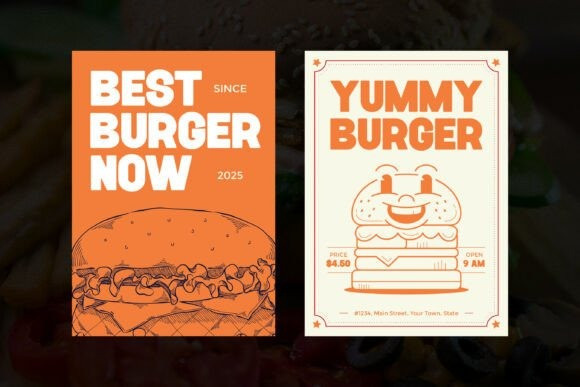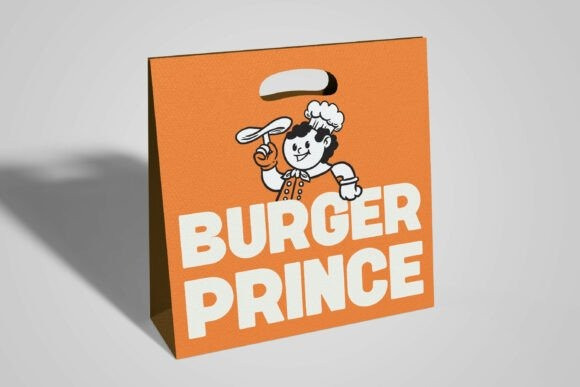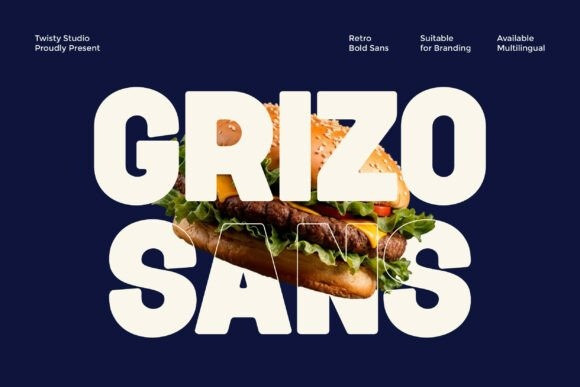
Grizo Sans Font
Grizo Sans Font is a powerful and commanding “Retro Bold Sans” typeface that packs a heavy visual punch.Developed by Twisty Studio, the Grizo Sans typeface features ultra-thick, geometric letterforms with tightly tucked curves that pay homage to vintage 1970s advertising and bold signage. The glyphs in the Grizo Sans font are designed with a massive weight and minimal negative space, making it a “suitable for branding” powerhouse for industries ranging from gourmet food to street-wear fashion.
The Grizo Sans typeface is built to dominate headlines and create an immediate impact. As shown in its “GRIZO SANS” burger-themed preview, this font is perfect for high-contrast food packaging, bold restaurant menus, and cinematic posters. You can further enhance the Grizo Sans font by using its multilingual support to reach a global audience or by applying vibrant, retro-inspired color schemes.
If your project requires an “available multilingual” tool that combines nostalgic charm with modern industrial strength, the Grizo Sans typeface is your ultimate solution.